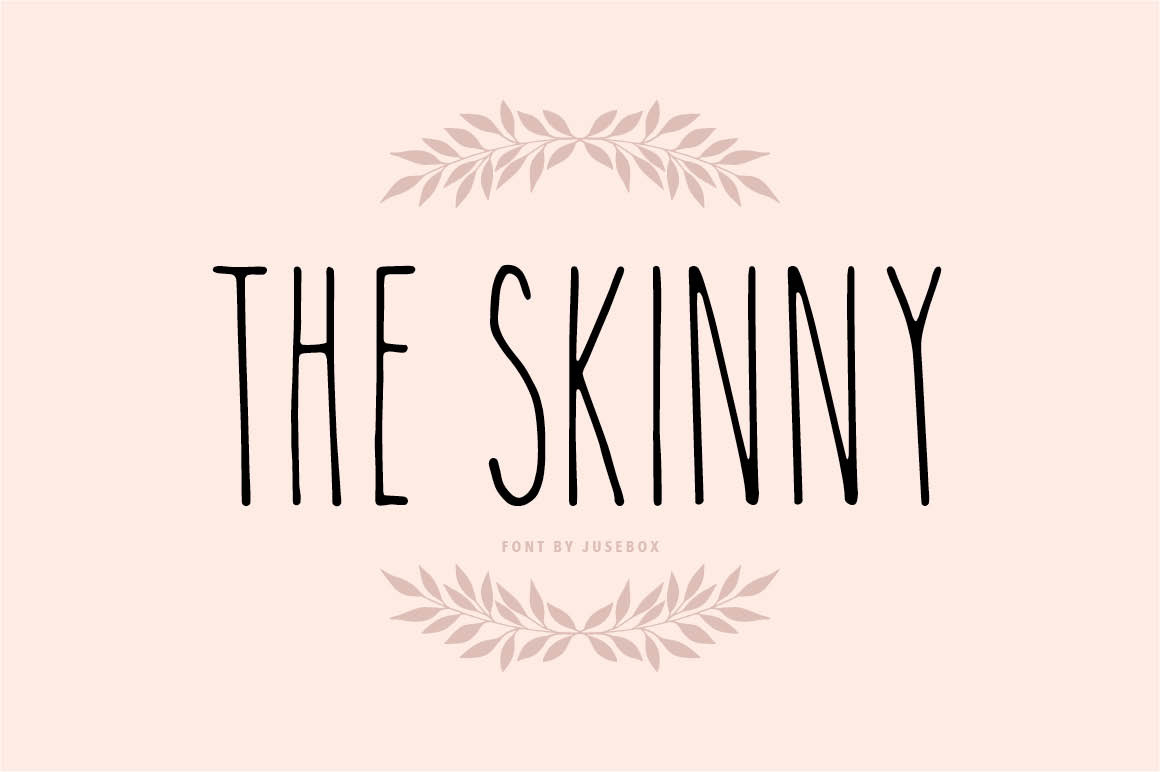
The Skinny is a sleek and simple handwritten font. OTF, TTF & web font files included.
- light, regular, bold weights
- uppercase characters
- lowercase characters
- numbers & special characters